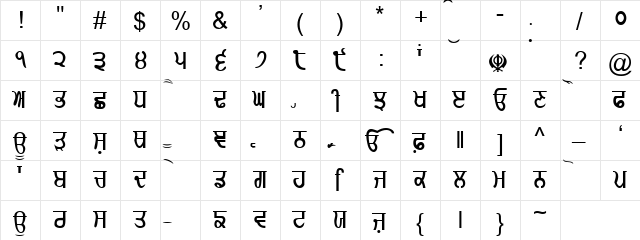
Khalsa Regular
Design Context for Khalsa Typeface
Khalsa takes a measured approach to typography — its balanced proportions and neutral character make it a reliable workhorse for both digital and print work.